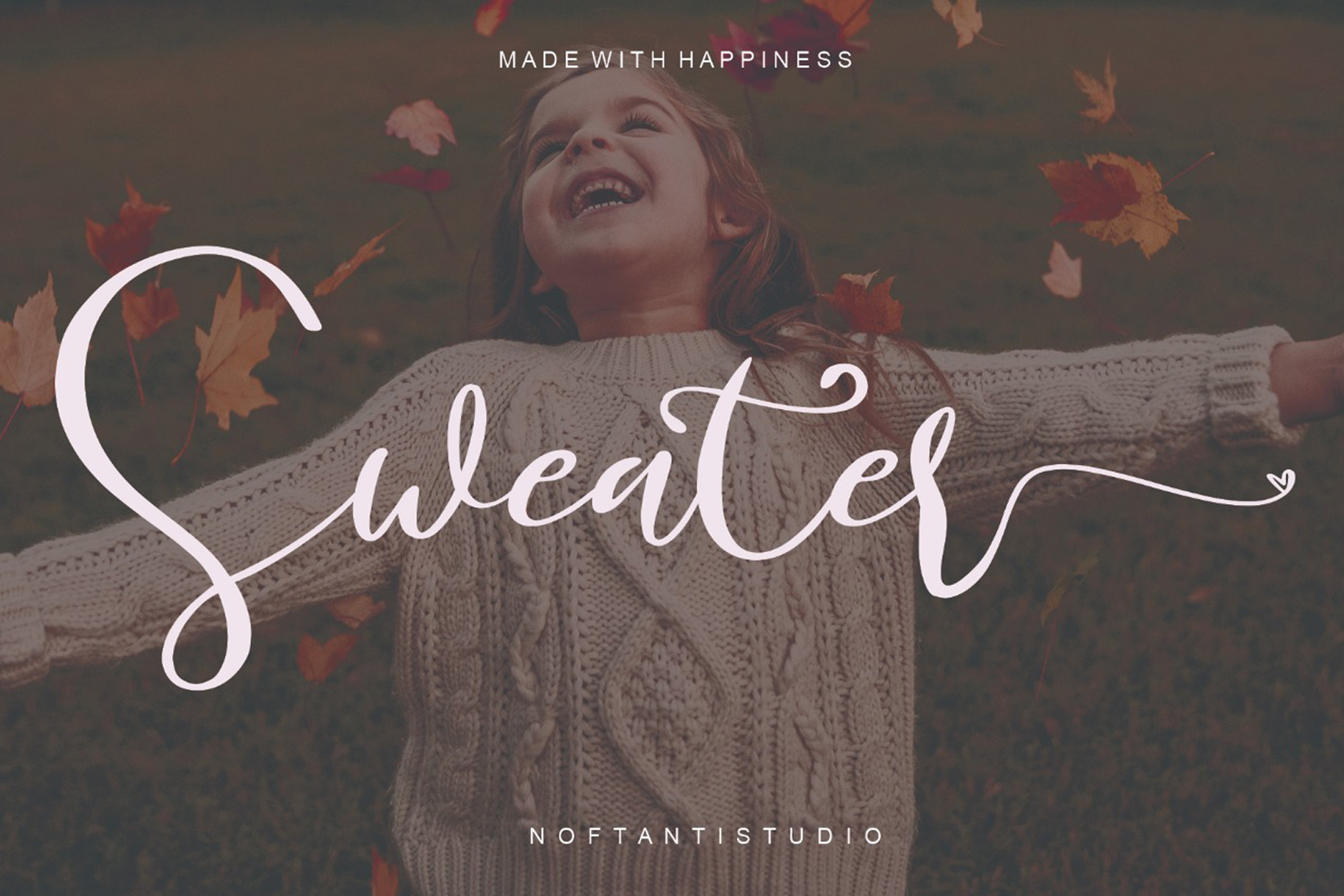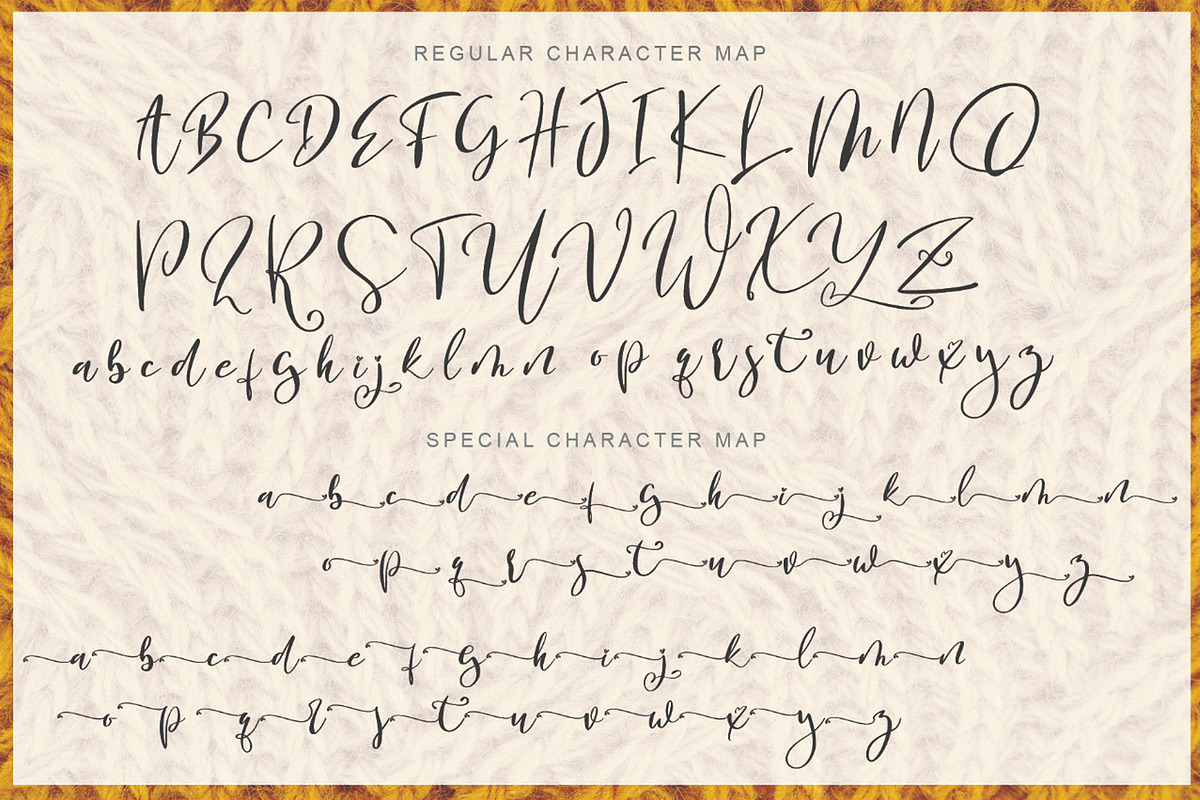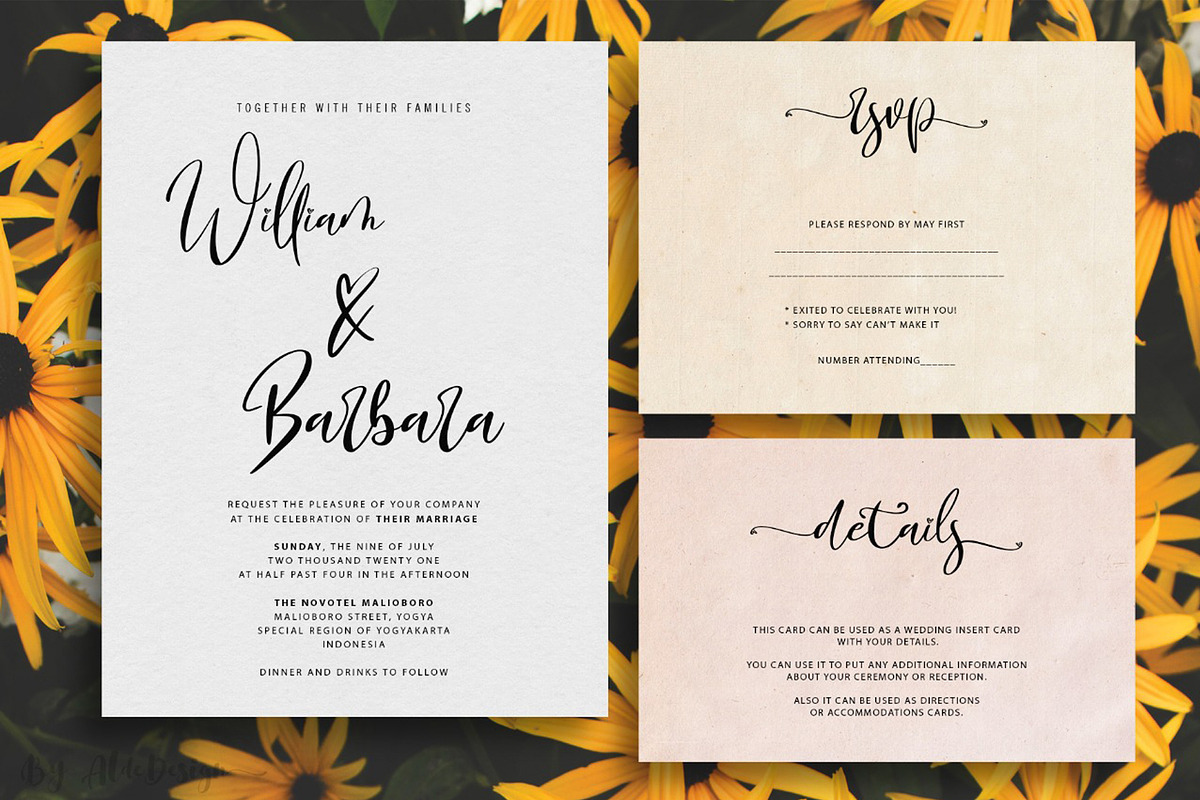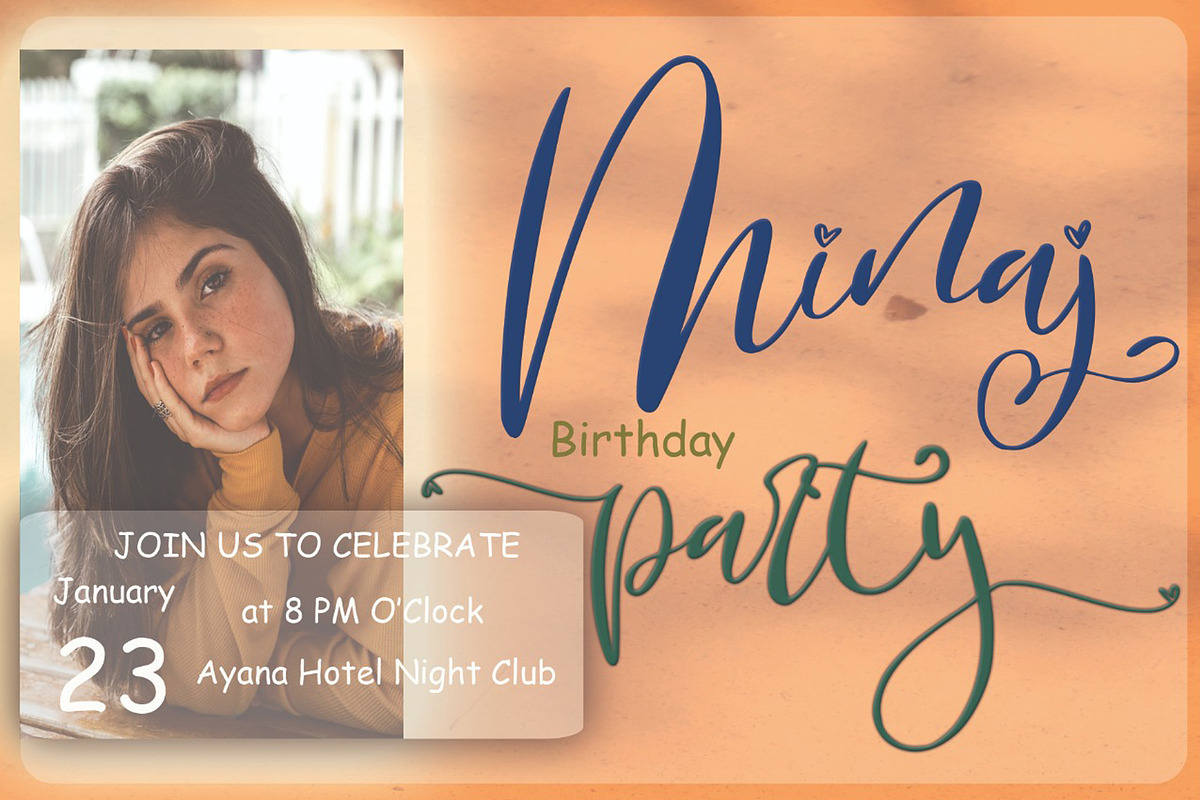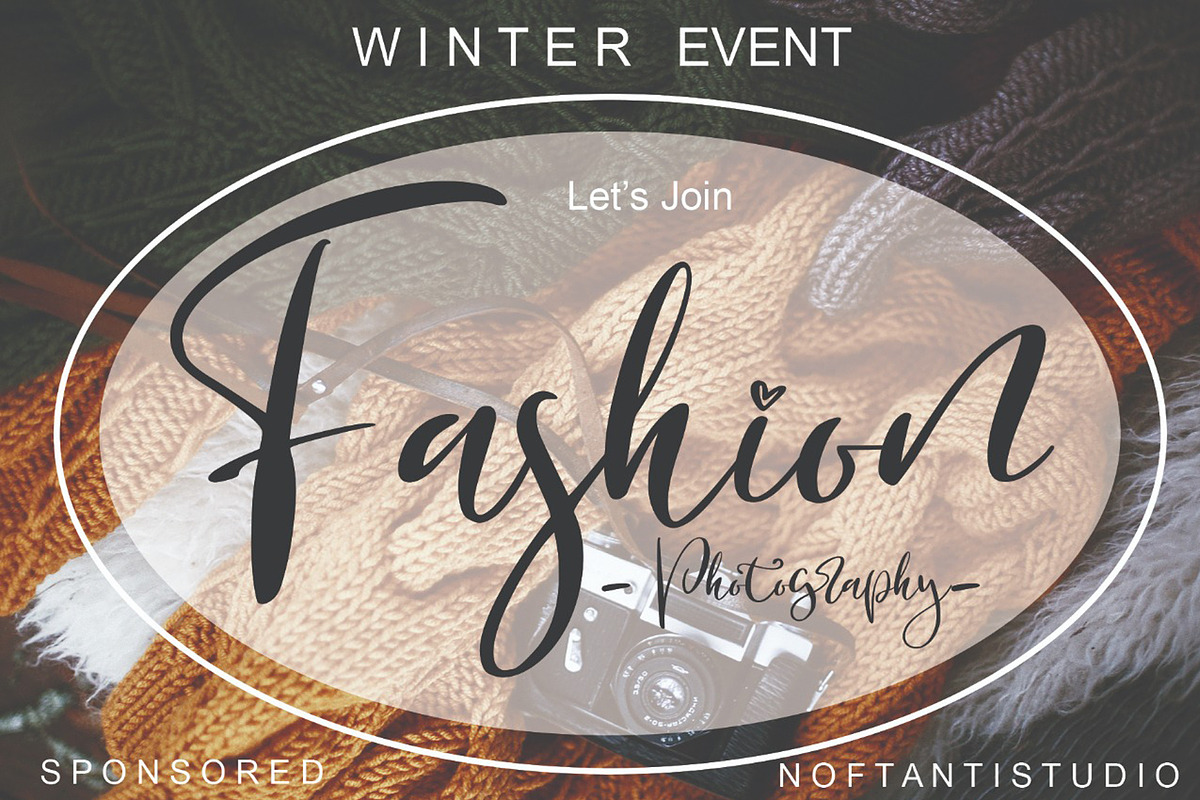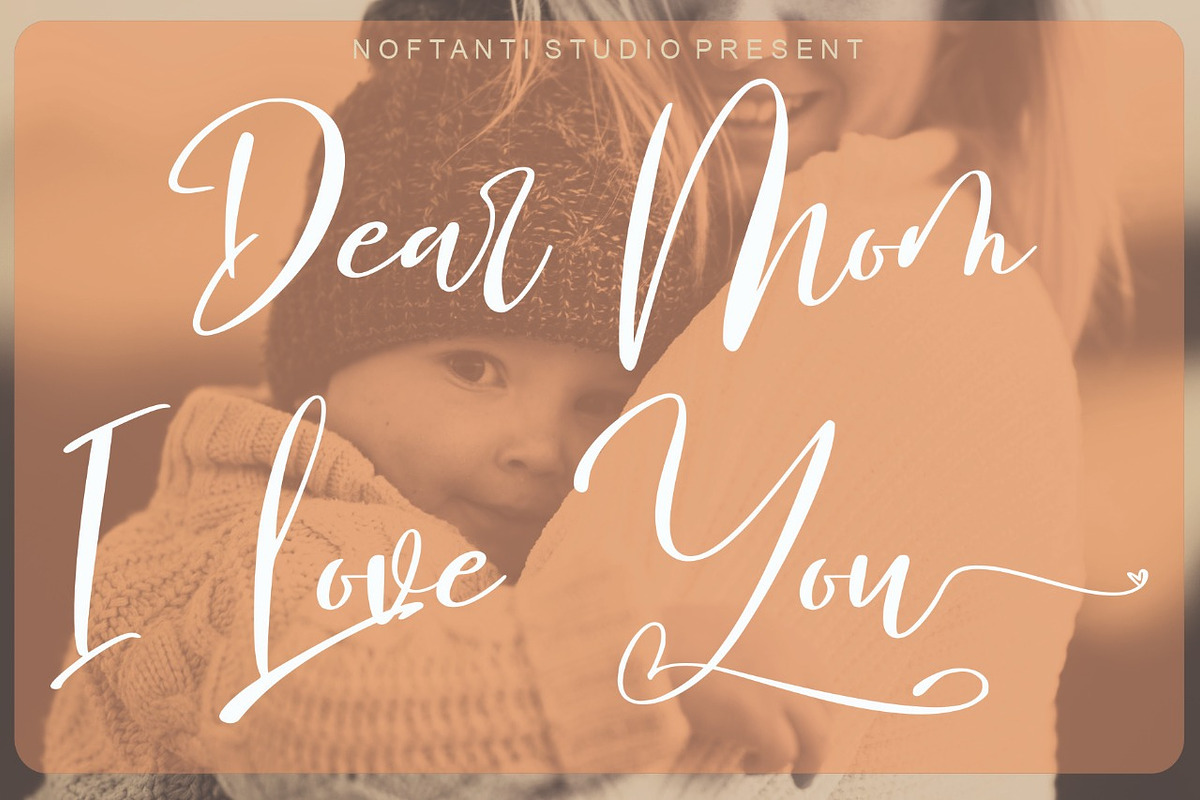
Sweater Cutes Script Font
Alde Design x Noftanti Studio
Sweater Cutes Script Font
The Sweater is a gorgeous and lovely script font. This fantastic is best suited for headlines of all sizes, as well as for blocks of text that have both maximum and minimum variations. Whether it’s for web, print, moving images, or anything else – A Sweater Font will look spectacular.
- Stylish modern handwritten script
- Beautiful Swash (Ending tail)
- Beautiful Titling (Beginning tail)
- Special Ligatures